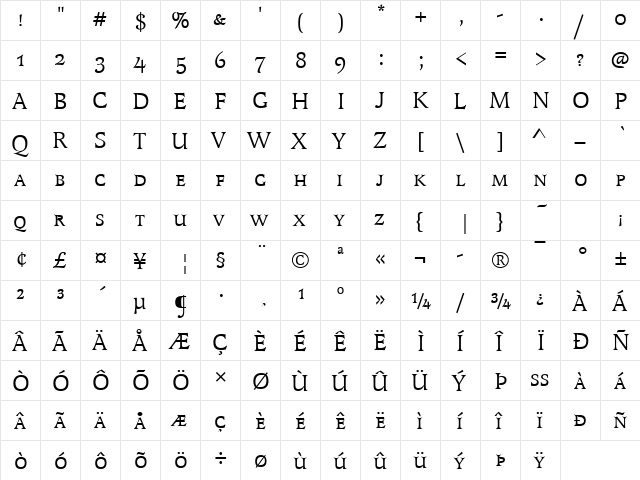
Latienne Becker Caps Regular
Design Context for Latienne Becker Caps Typeface
Latienne Becker Caps is a composed and adaptable typeface that performs quietly and consistently across a wide range of design contexts.